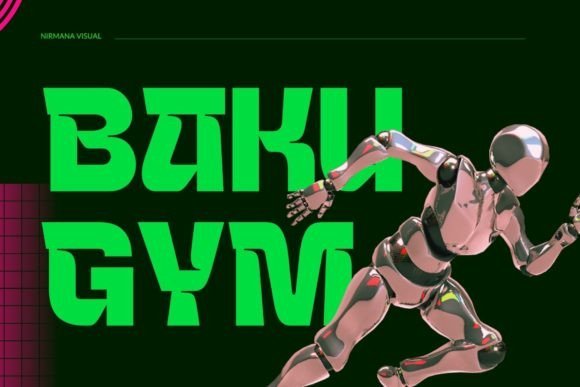
The Perfect Font for Your Next Big Design Project
Remember that moment when you’re brainstorming ideas for a new project, and suddenly, the perfect concept hits you? It’s like a rush of creative energy that makes you want to bring your vision to life. For designers, this moment is what drives us to push the boundaries of what’s possible with typography. And that’s exactly what we’ve achieved with our latest font release: Baku Gym Font.
This cutting-edge Sports techno font is designed to add a futuristic and sleek aesthetic to your designs. With its sharp lines, geometric forms, and high-tech vibe, it’s perfect for projects that require a modern and forward-looking visual identity. Whether you’re creating a sports brand, a futuristic cityscape, or a high-tech gadget, Baku Gym Font is the perfect companion for your design journey. Its PUA encoding ensures that you can access all of the amazing glyphs and ligatures with ease, making it a valuable addition to your design toolkit.
Baku Gym Font Key Features
- Unique Characteristics: Baku Gym Font features a distinctive blend of modern and vintage elements, with bold lines, geometric shapes, and a dynamic feel.
Baku Gym Font Review
As a designer, I’ve had the chance to work with a wide range of fonts, but Baku Gym Font was a unique experience. Overall, I think it’s a solid choice for specific projects, but it’s not without its limitations.
- Unique and bold aesthetic: Baku Gym Font has a distinctive look that can add a lot of character to a project.
- Great for action and sports: The font’s energetic feel makes it perfect for use in action-packed or sports-related projects.
- Legibility is good: Despite its bold appearance, Baku Gym Font is still easy to read, even at smaller sizes.
- Limited flexibility: Baku Gym Font is best suited for projects that require a bold, attention-grabbing font. It may not be the best choice for more formal or professional projects.
- Not suitable for small text: While the font is legible, it’s not ideal for use in small text or body copy, where a more readable font is preferred.
- Not ideal for long blocks of text: The font’s bold aesthetic can make it difficult to read large blocks of text, where a more subtle font would be better suited.
Baku Gym Font is a fun and energetic font that can add a lot of character to a project. While it has its limitations, it’s a great choice for action-packed or sports-related projects, or for use in specific design elements where a bold font is needed.
Tips for Getting the Most Out of Baku Gym Font
Use Baku Gym Font to add a unique and modern touch to your designs.
Pair it with bold colors and geometric shapes for a striking visual effect.
Experiment with different font sizes and styles to create a dynamic and engaging layout.
Baku Gym Font is ideal for:
Health and fitness branding
Sports and wellness marketing materials
Modern and minimalist design projects